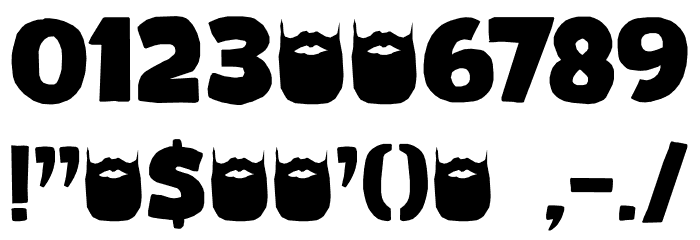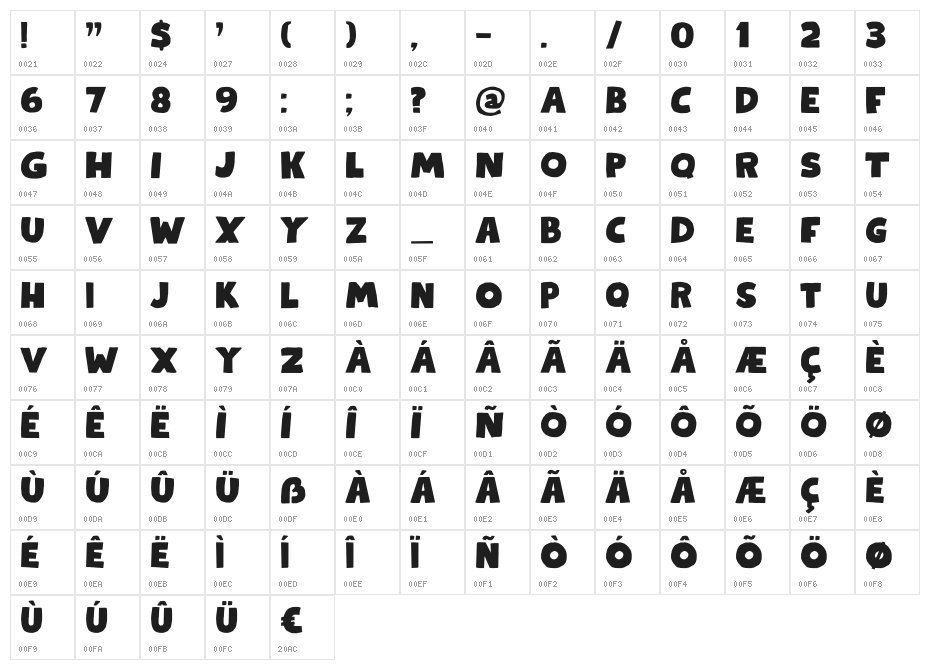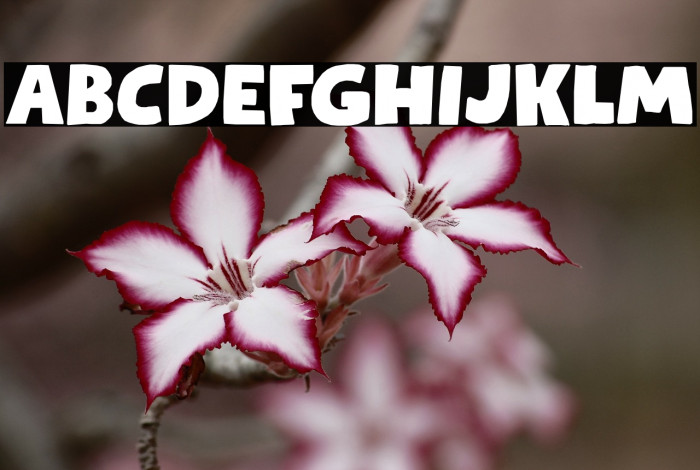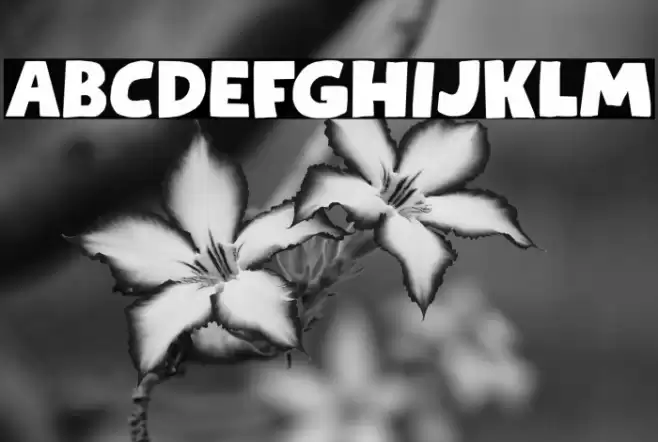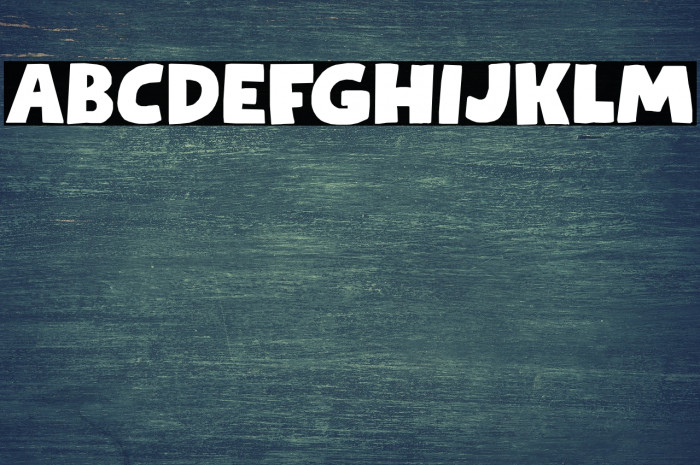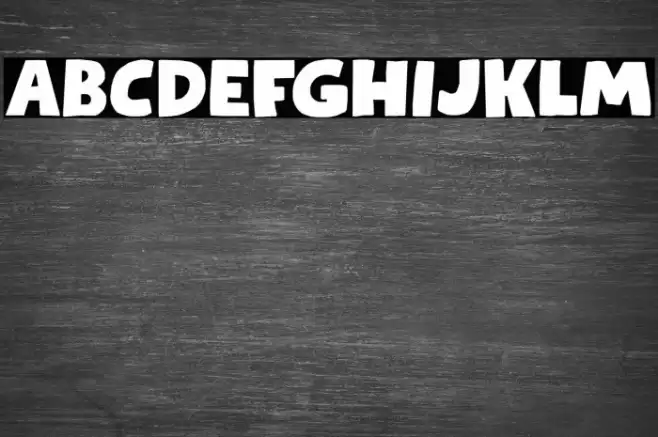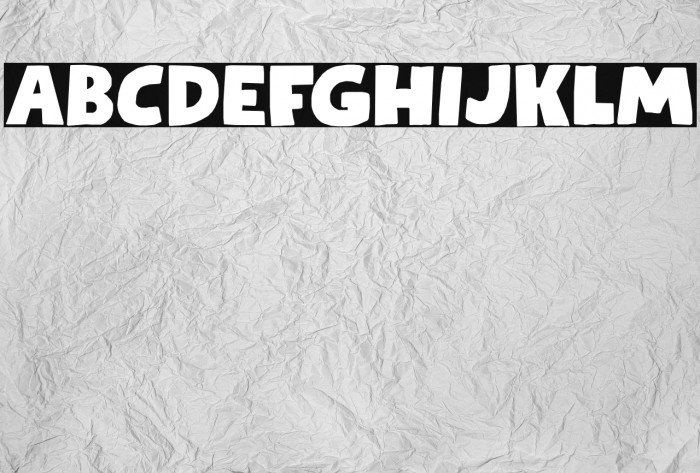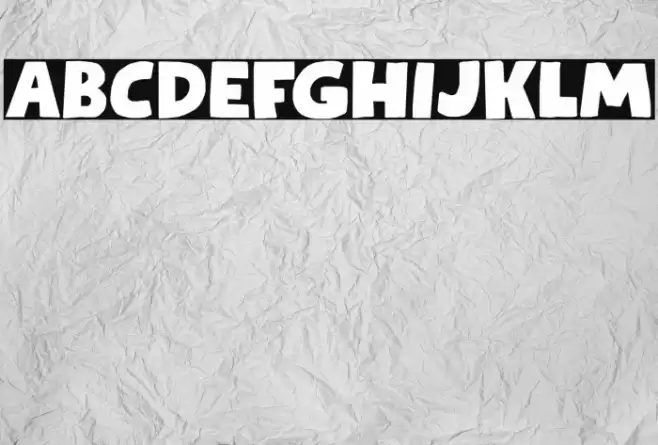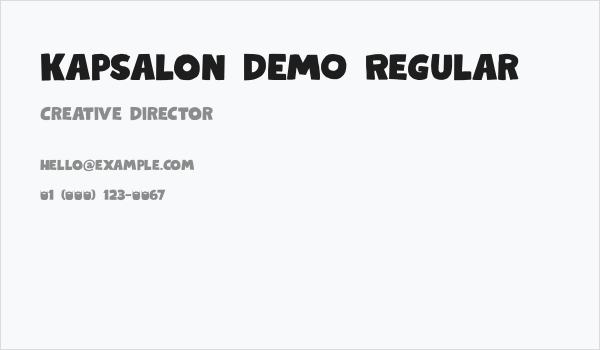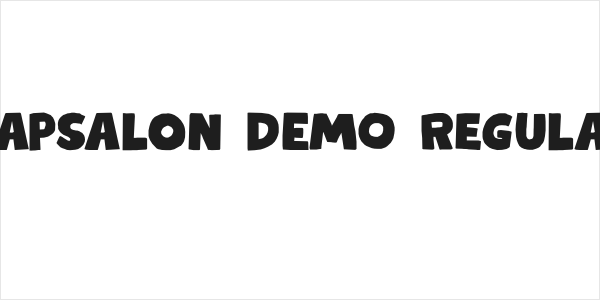
Kapsalon DEMO Regular Font
Kapsalon DEMO Regular Description
This font features a bold and playful design with a unique, chunky appearance. The characters are heavily stylized, with exaggerated curves and angles that give them a dynamic and energetic feel. The uppercase and lowercase letters maintain a consistent weight, contributing to a cohesive look across the alphabet. The numbers and special characters are equally bold, with some incorporating playful elements like beards, adding a whimsical touch. This font's distinct style makes it stand out, ideal for projects that require a strong visual impact.
| Proposed Projects | Ideal for branding, posters, children's books, and any project needing a fun, eye-catching typeface. |